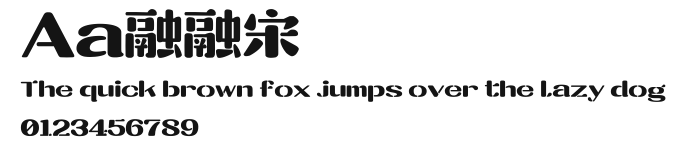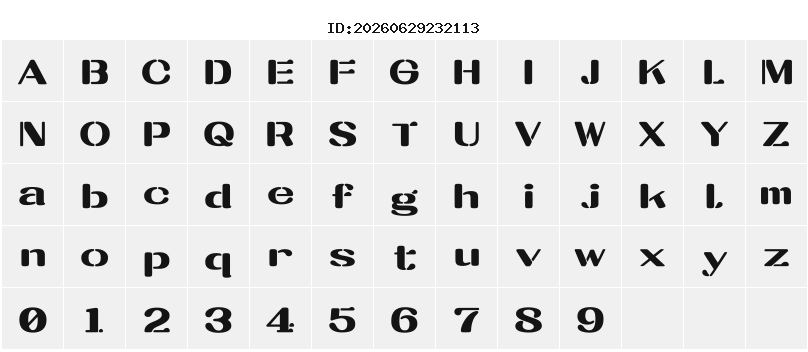
Aa融融宋 Preview
• Font Name: Aa融融宋
• Font Style: 常规
• Font ID: 1.000;Aa;AaRongRongSong;2022
• Full Font Name: Aa融融宋
• PostScript Name: AaRongRongSong
• Character Count: 10023
• Designer: Aa
• Manufacturer: 翰美互通(厦门)科技有限公司
• Description: AaRongRongSong is a fantastic font with excellent features designed for user interfaces and electronic communications.
About Aa融融宋.ttf
Aa融融宋.ttf is a modern, elegant sans-serif font designed for ultimate readability and visual harmony. Perfect for branding, headlines, web design, and print materials.